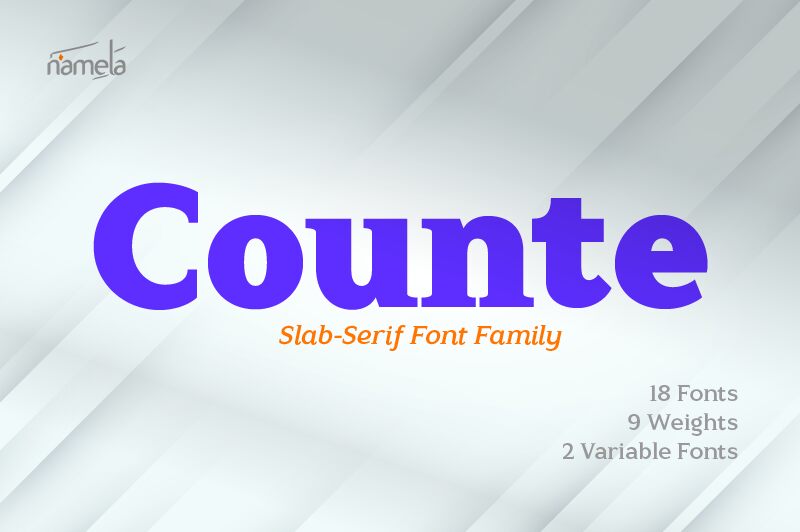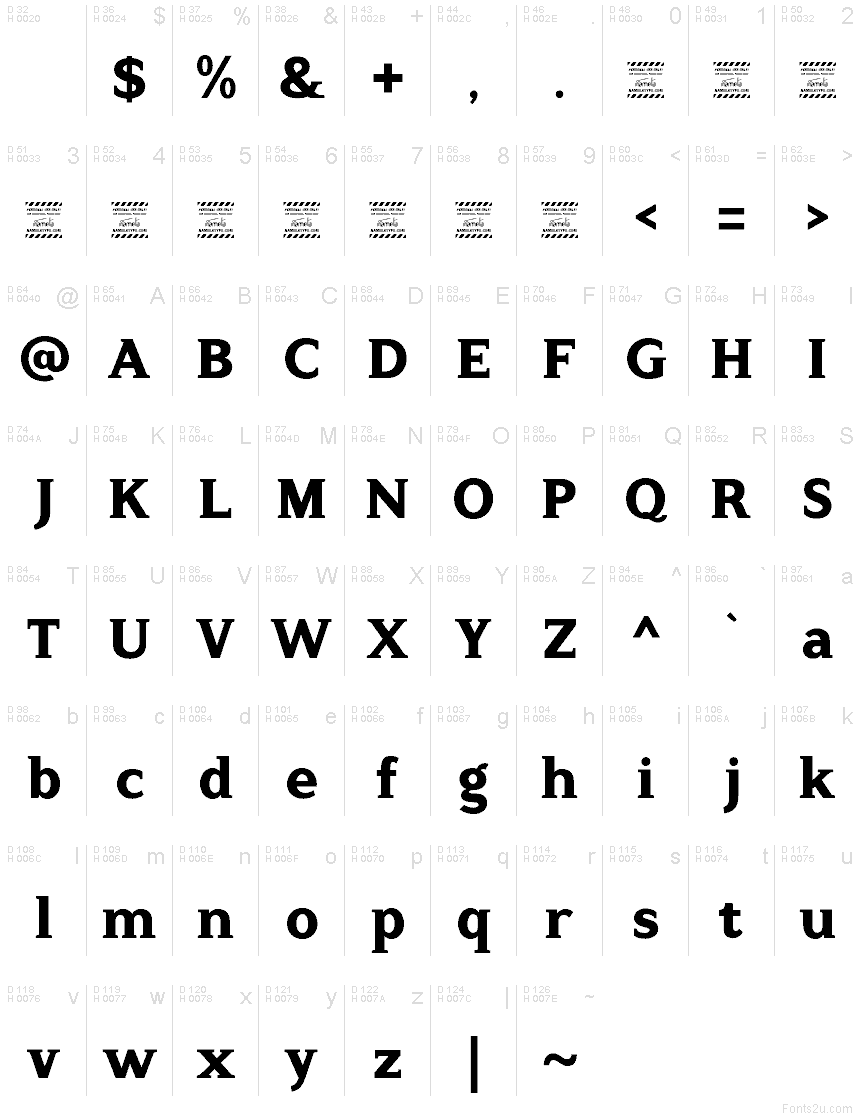
Counte Bold font by Namela Type is a modern bold serif font that adds sophistication and precision to any design. The structured characters reflect professionalism at its finest, offering all kinds of projects exceptional legibility and style. Written tones are also enhanced as letters acquire a simple yet strong presence given their visual thickness.
This free font works great within logos, business cards, magazine covers, official documents, and online platforms. Use it in greeting cards and invitations for weddings or add a direct modern touch to merchandise shops and branding identity projects. With Counte Bold font, you always have a chance to curate your own typography quality items like t-shirts, mugs…